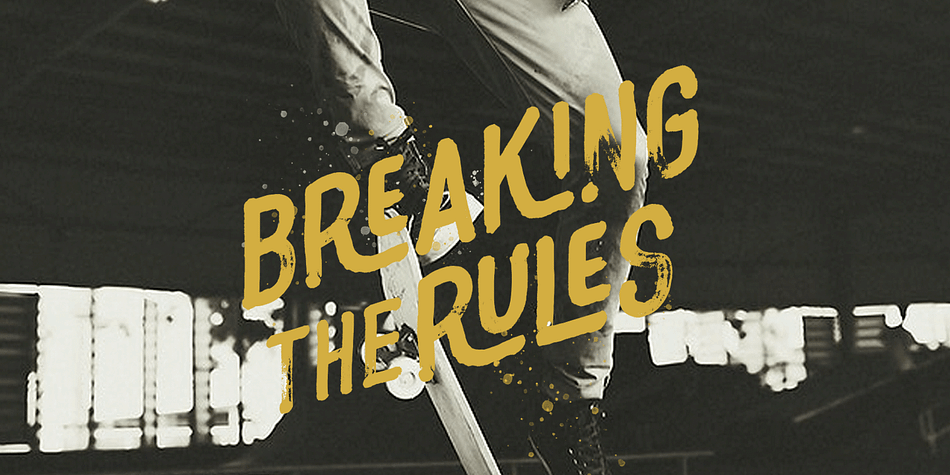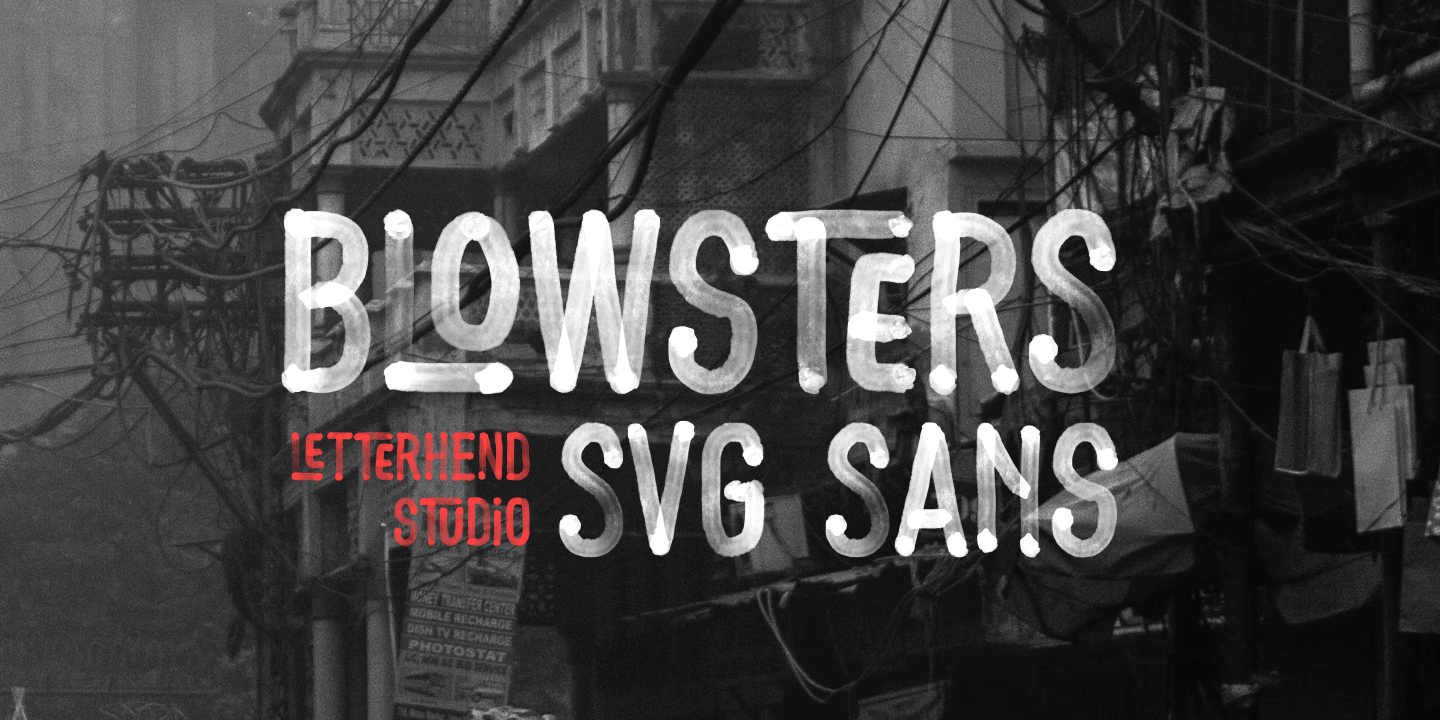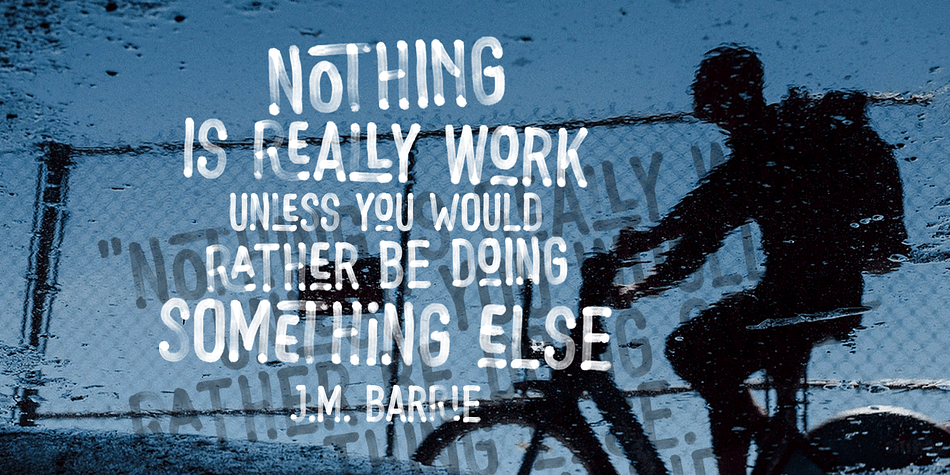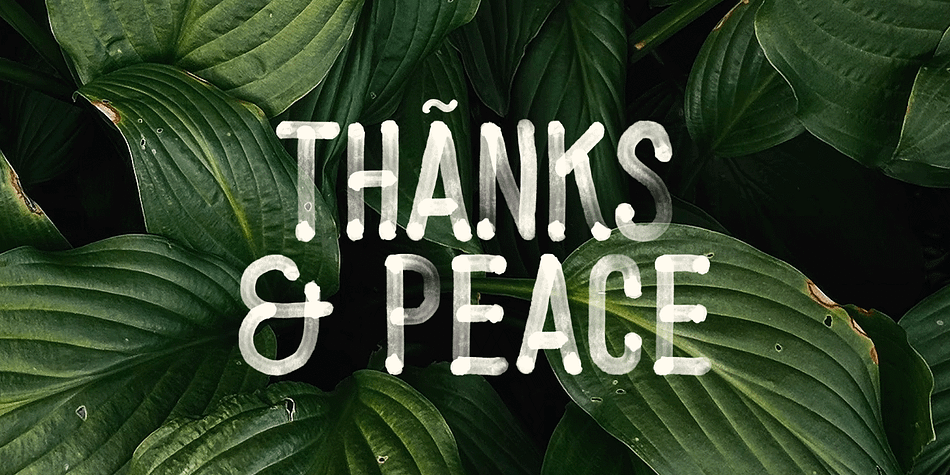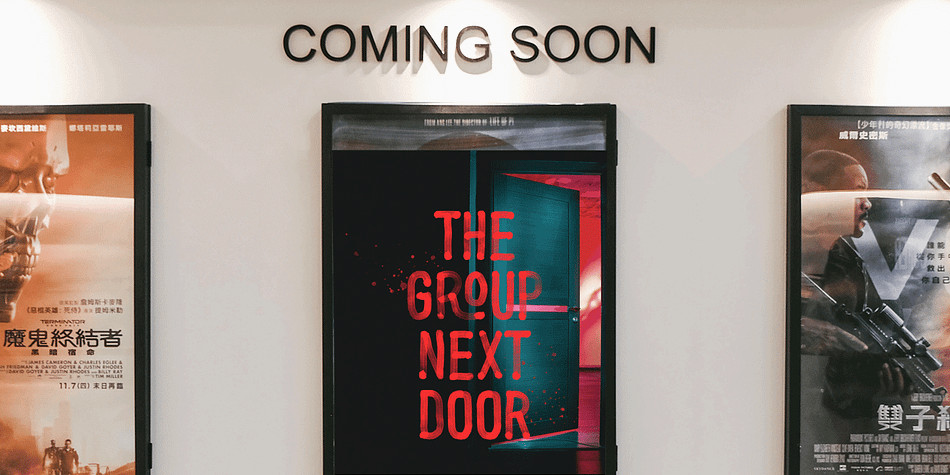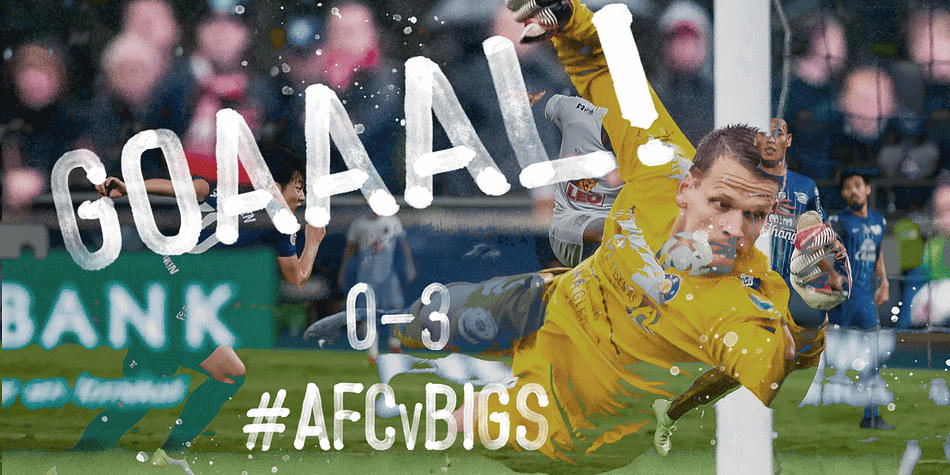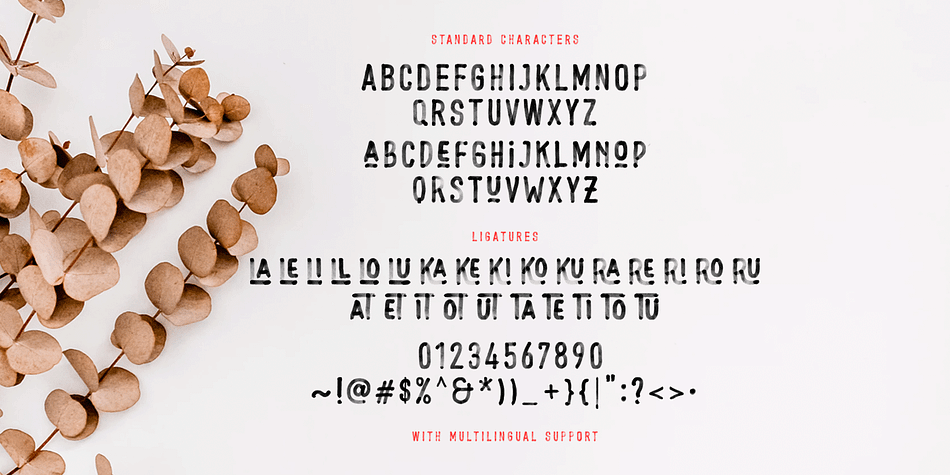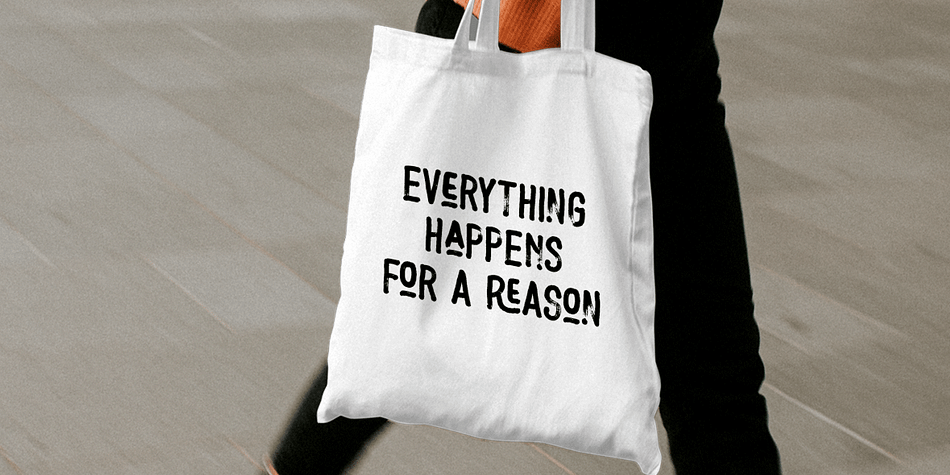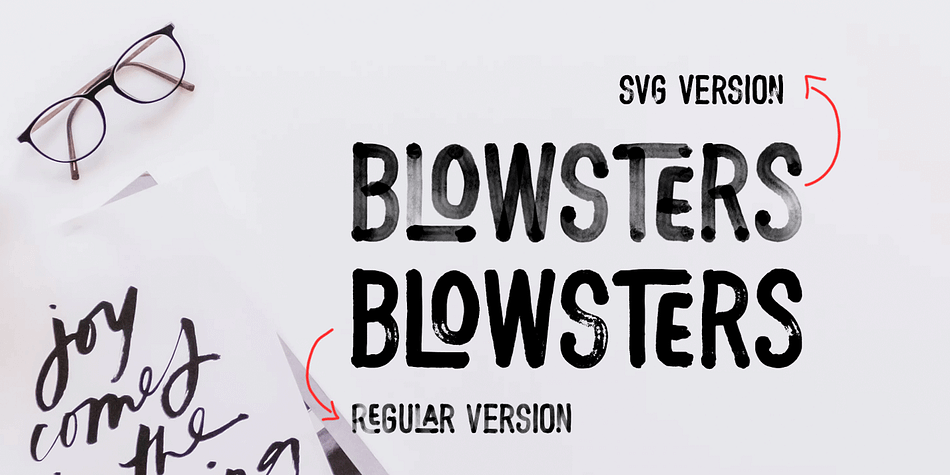
Blowsters
Designed by Hendry Juanda, Blowsters is a display sans and hand display font family. This typeface has two styles and was published by Letterhend Studio.
Blowsters is a textured SVG Sans Serif typeface. Available in two types, solid version and transparent version. This type of font perfectly made to be applied especially in headlines which is need a standout font, and the other various formal forms such as invitations, labels, logos, magazines, books, greeting / wedding cards, packaging, fashion, make up, stationery, novels, labels or any type of advertising purpose.
Solid version and svg version
numbers and punctuation
multilingual
ligatures
Styles Display Sans, Hand Display